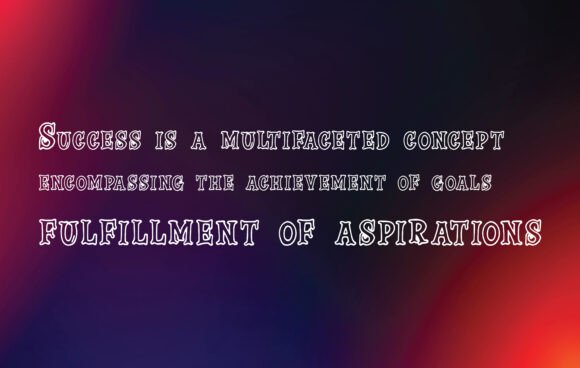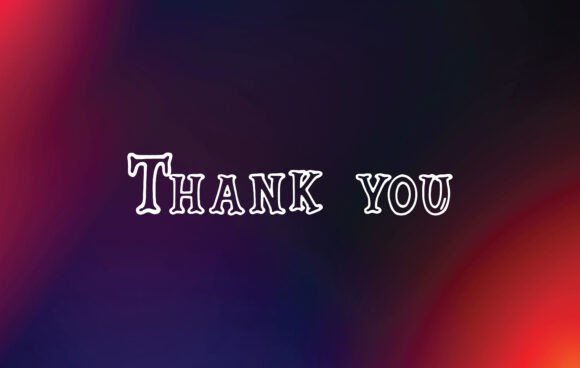
Introducing Gerbera Font: Elevate Your Creative Projects with Style and Versatility
In the world of typography, finding the perfect font that combines style, readability, and versatility can be a daunting task. However, if you’re on the hunt for a typeface that can effortlessly elevate your creative projects, look no further than the Gerbera Font. This beautifully crafted font is designed to become a staple in your collection, offering an ideal blend of aesthetics and functionality that suits a wide range of applications.
Aesthetic Appeal and Readability
Gerbera Font stands out with its unique aesthetic appeal, making it an excellent choice for designers and crafters looking to add a touch of elegance and modernity to their work. Its design ensures that it is not only visually appealing but also incredibly easy to read. This balance of form and function makes Gerbera Font perfect for both titles and body text, providing flexibility in your design projects.
Versatility Across Various Projects
One of the key benefits of Gerbera Font is its incredible versatility. Whether you’re working on a professional project or a personal craft, this font adapts seamlessly across different mediums and applications. Here are some of the many ways you can utilize Gerbera Font:
- Magazine Headlines: Create eye-catching titles that draw readers in with Gerbera Font’s distinctive style.
- T-Shirts and Apparel: Design custom apparel that stands out with a font that’s both stylish and legible.
- Social Media Posts: Elevate your digital content with professional-looking text that captures attention.
- Branding Materials: Establish a strong brand identity with a font that communicates your message effectively.
- Wedding Invitations: Add a touch of elegance and sophistication to your wedding or event invitations.
- Greeting Cards: Create heartfelt and visually appealing cards for any occasion.
Crafting with Gerbera Font
For crafters, Gerbera Font offers endless possibilities for personalization and creativity. Whether you’re making DIY projects, crafting unique gifts, or simply expressing your creativity, this font can help you achieve a professional and polished look. Its compatibility with various crafting projects, from papercraft to digital art, makes it an invaluable resource in your crafting arsenal.
Why Choose Gerbera Font?
There are several reasons why Gerbera Font should be your go-to choice for your typography needs:
- Unique Style: Offers a distinctive look that sets your projects apart.
- High Readability: Ensures your message is communicated clearly and effectively.
- Versatility: Suitable for a wide range of projects and applications.
- Ease of Use: Seamlessly integrates into your design workflow.
Gerbera Font is more than just a typeface; it’s a tool that can transform your creative projects, adding a layer of sophistication and professionalism. Its blend of style, versatility, and readability makes it an essential asset for designers and crafters alike. Whether you’re working on a commercial project or a personal craft, Gerbera Font is sure to become your favorite companion in the world of typography.